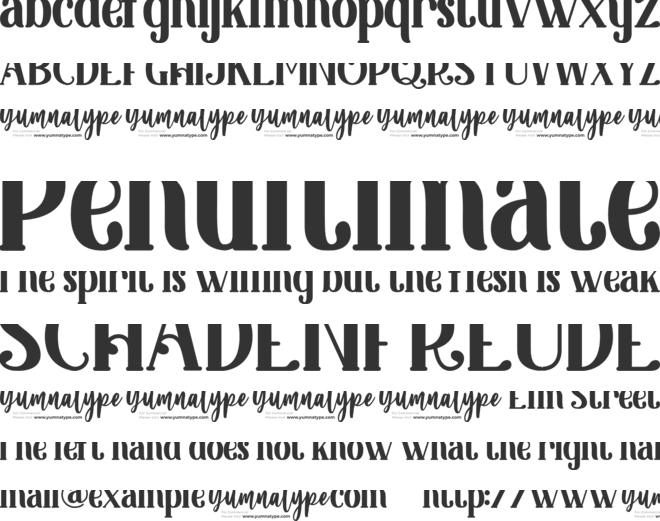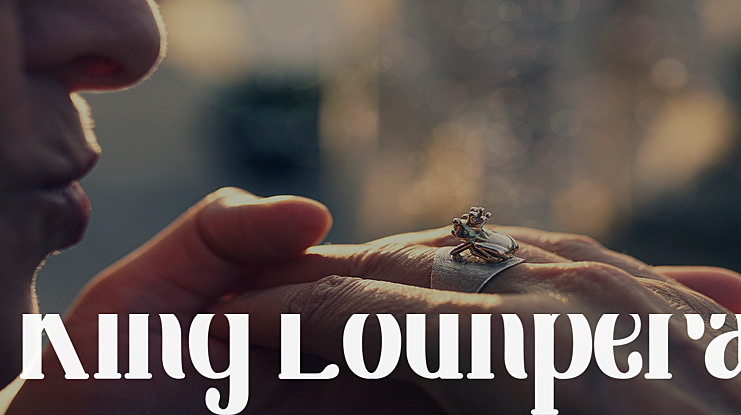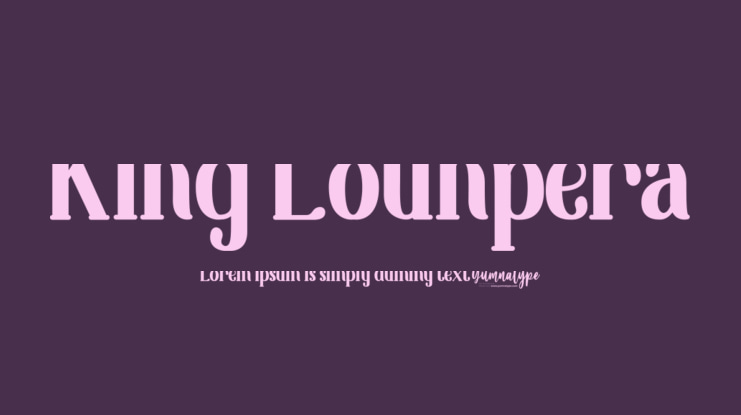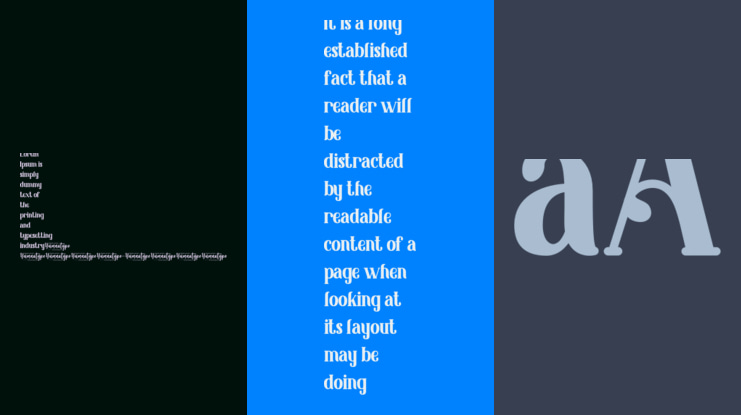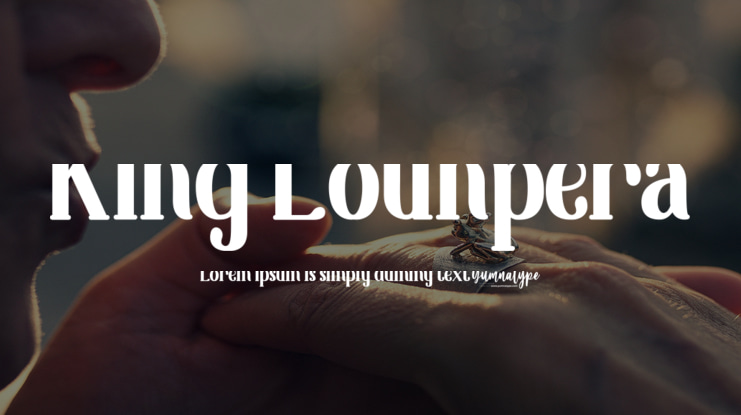
Introducing King Lounpera Display font. King Lounpera is a beautiful Display font. The family consist from 2 font Solid and Outline. This font is suitable for any design like branding, quotes, t-shirt printing and etc.